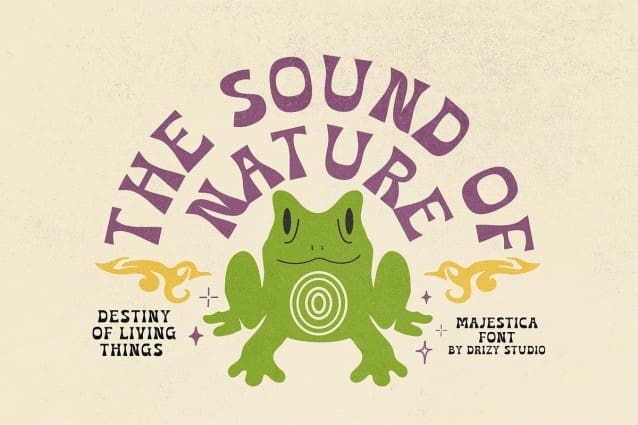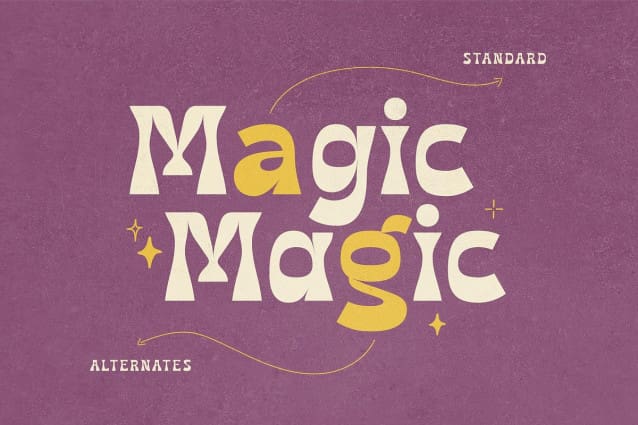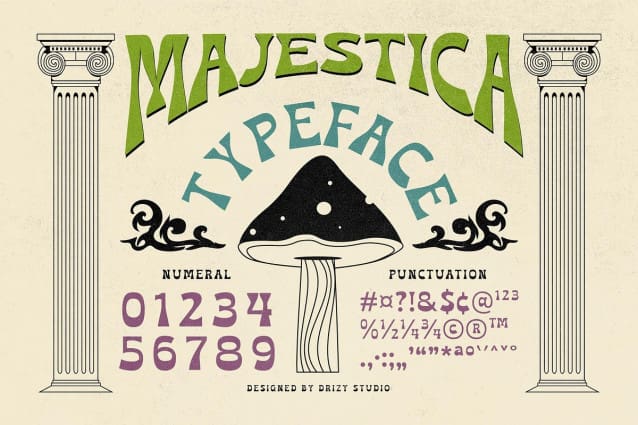
Majestica Display Font
Majestica Display Font, a retro psychedelic font from drizy! This bold and wavy display. Perfect for gorgeous headline, logos, titles etc, slowly signature will pair beautifully with many fonts and work well with whatever project you’re working on.